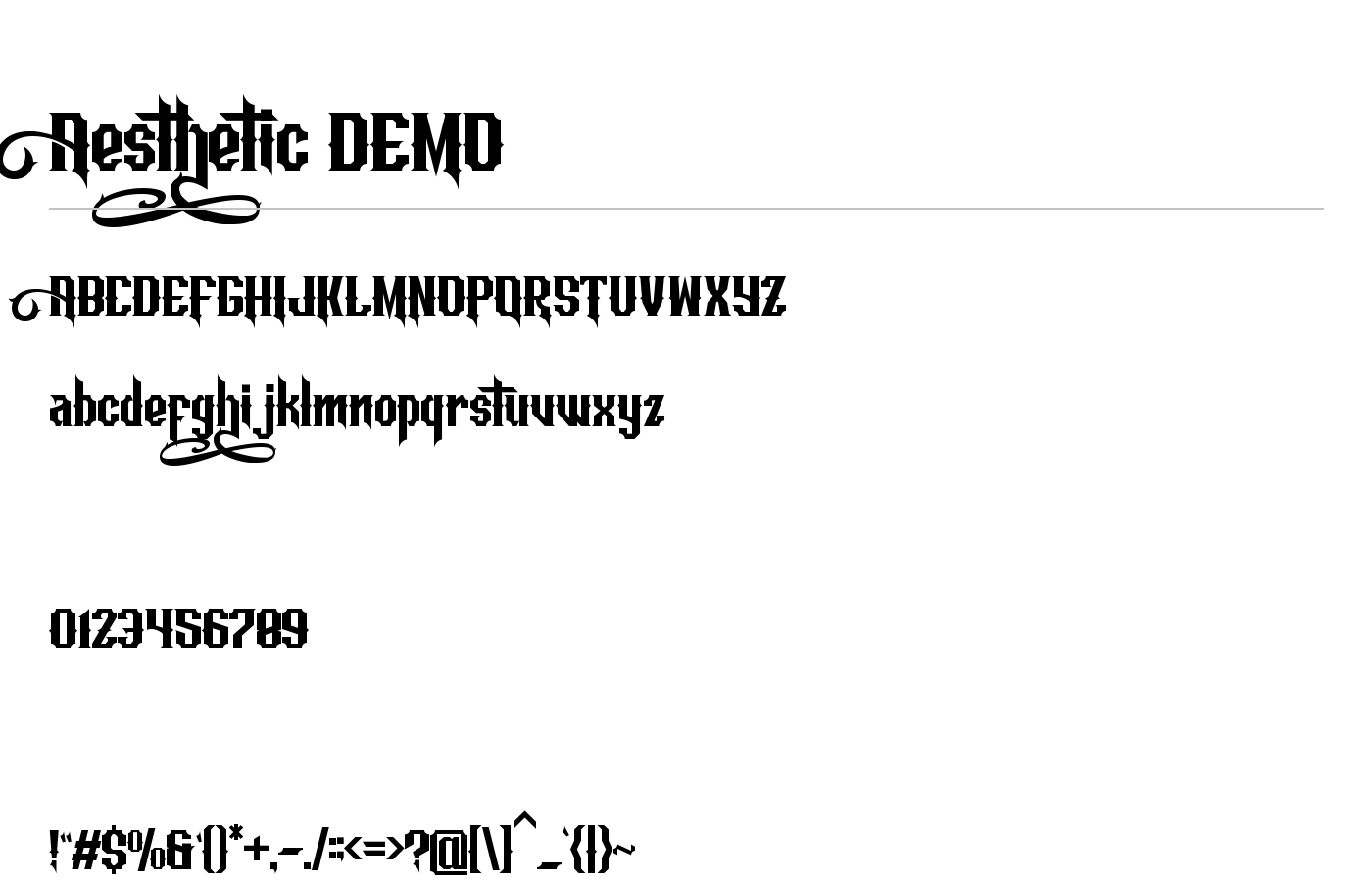
Aesthetic DEMO is a bold, condensed blackletter-inspired font with sharp, angular strokes and ornamental swashes that add a gothic, dramatic flair. It exudes a vintage yet edgy personality, making it ideal for branding, logos, and headlines that need a striking, artistic impact. This font works best in designs seeking a strong, historic, or alternative vibe, where a bold statement is essential.
Aesthetic DEMO Font
About Aesthetic DEMO Font